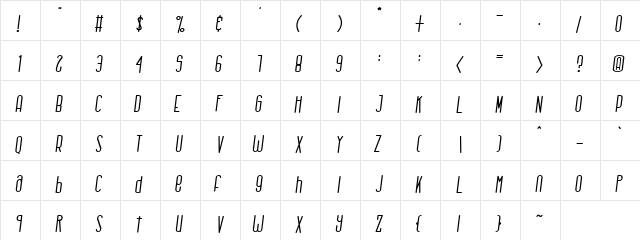
Rhantica Regular Ital
| Foundry | Stefie Justprince |
| Designer | Stefie Justprince |
Design Context for Rhantica Typeface
Rhantica is a composed and adaptable typeface that performs quietly and consistently across a wide range of design contexts.